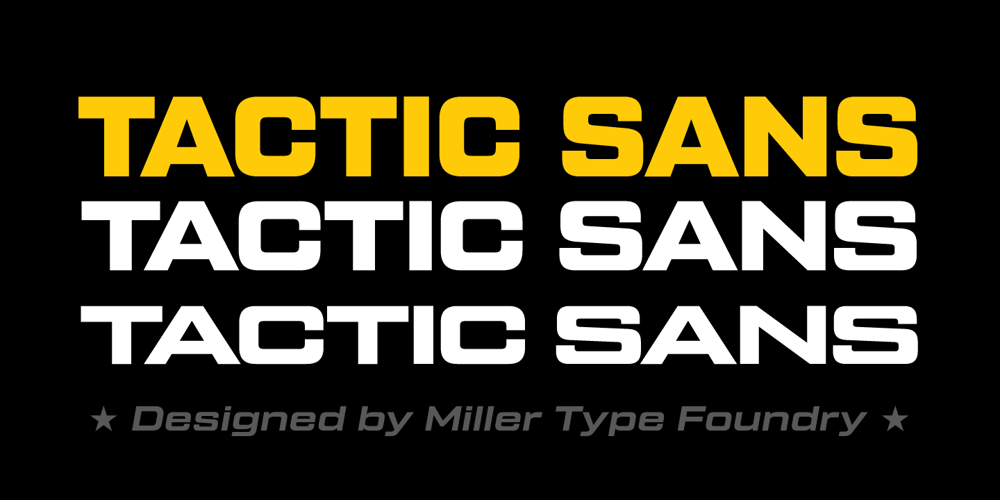
Tactic Sans
Tactic Sans font
Tactic Sans Font Family was designed by Richard Miller and published by Miller Type Foundry. Tactic Sans contains 42 styles and family package options. Tactic Sans was created to be as versatile as a special forces operator. Seven weights times three widths, all with italics, means that Tactic Sans has forty-two options to make every design accomplish its mission. From military to sports, posters to email blasts, Tactic Sans works for almost any project. Tactic Sans supports extended Latin alphabets as well as Cyrillic alphabets. Opentype accessories include: Alternate Characters, Tabular Lining Figures, Ligatures (including symbol ligatures), Numerators (including $¢£€¥ƒ#%) Denominators Superscript & Subscript, Fractions and more!